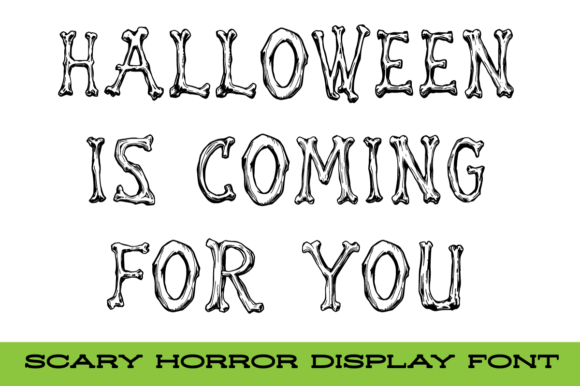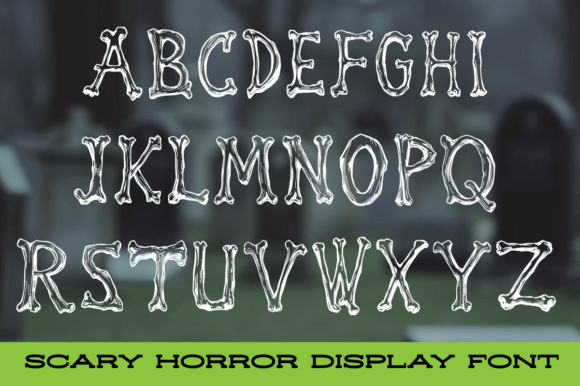
Designing Fear: The Bonechiller Font
As designers, we’ve all been there – staring at a blank page, waiting for that spark of inspiration to strike. For me, it happened on a stormy night while working on a project. I wanted to create a title that would send chills down the reader’s spine, and that’s when I stumbled upon the Bonechiller Font. Its unique design, inspired by the structure of real bones, seemed to be the perfect fit for my project.
The Bonechiller Font is a masterclass in macabre typography, with each letter carefully crafted to resemble the femurs and skull-like curves of skeletal remains. Its imperfect, hand-assembled look adds to its eerie charm, making it a must-have for designers looking to create haunting titles, haunted house posters, or any design that evokes a sense of death and decay.
Whether you’re working on a horror movie, a spooky video game, or a mysterious novel, the Bonechiller Font is sure to deliver the desired level of eeriness and sophistication.
Bonechiller Font Key Features
- Size: The font family includes multiple weights and styles, ranging from Extra Light to Black, providing flexibility for various design applications.
- Resolution: Designed for high-resolution displays, the Bonechiller Font is ideal for use in digital media, such as web design, mobile apps, and video games.
- Unique Characteristics: This font features a unique, eerie aesthetic with a blend of organic and geometric elements, perfect for creating a haunting or mysterious atmosphere in design projects.
- Language Support: The Bonechiller Font supports a wide range of languages, including Latin, Cyrillic, and Greek, making it suitable for international design applications.
- Font Metrics: The font’s metrics are carefully crafted to ensure optimal readability and legibility, even in small sizes and at high resolutions.
Bonechiller Font Review
Overall, I think the Bonechiller Font has some nice qualities that make it worth considering for certain projects. ✨ One of the things that stands out is its unique, edgy aesthetic, which could add a lot of character to a design. The font’s bold lines and angular shapes make it perfect for headlines, titles, or any other text that needs to grab attention.
✨ Another advantage of the Bonechiller Font is its versatility. It comes in a range of weights and styles, from light to bold, which makes it easy to use in different contexts. Whether you’re creating a bold, eye-catching logo or a more subtle, elegant design, the Bonechiller Font has got you covered.
However, there are some limitations to consider. ⚠️ One of the main drawbacks is that the font can be a bit difficult to read in smaller sizes. The bold lines and angular shapes that make the font so distinctive can also make it harder to decipher at closer range. Additionally, the font may not be the best choice for body text, as it can be a bit too attention-grabbing for continuous reading.
Design Considerations
- Use the Bonechiller Font for headlines, titles, or other text that needs to grab attention.
- Choose the right weight and style to suit your design needs.
- Avoid using the font in smaller sizes or for continuous reading.
- Consider pairing the Bonechiller Font with a more legible font for body text.
Bonechiller Font Practical Application Guide
In PowerPoint or Word, select the “Home” tab and click on the “Font” dropdown menu. Search for “Bonechiller” and choose the desired font style. Adjust the font size and color as needed using the font formatting options. Bonechiller Font works well for creating attention-grabbing headings and titles, making it perfect for presentations and reports.
Tips for Getting the Most Out of Bonechiller Font
Experiment with different font sizes and colors to create a striking visual effect. Pair Bonechiller Font with other spooky or mysterious fonts to create a cohesive design theme. Use the font in combination with images and graphics to create a dynamic and engaging design.